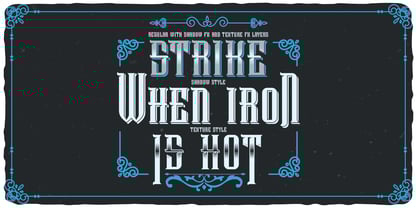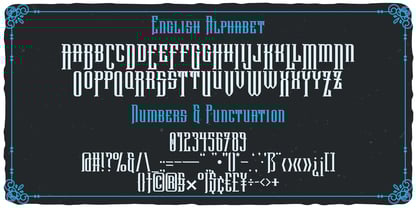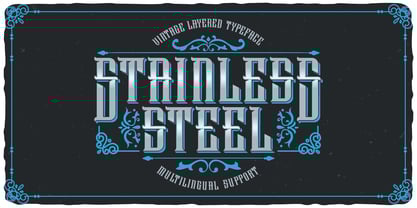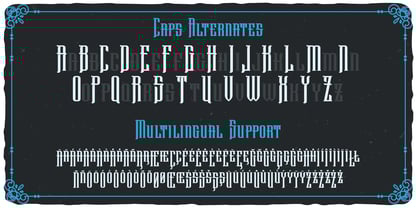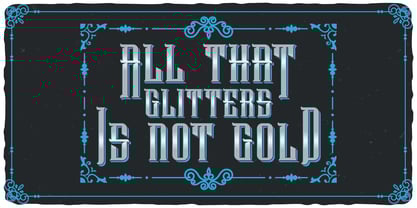
Stainless Steel
by Vozzy
The Stainless Steel Font Family was designed by Oleg Voznyy and published by Vozzy. Stainless Steel contains 4 styles and family package options.
Introducing the original display font "Stainless Steel" – a striking and uniquely handcrafted typeface that brings character to any project. Designed with a strong visual identity, it features extended characters, punctuation, and full multilingual support. Every letter was drawn by hand to create a distinctive, eye-catching look that sets your work apart. Perfect for posters, flyers, branding, apparel, and more, this font adds a creative edge wherever it’s used. "Stainless Steel" is all about making your message stand out with style.
Designers: Oleg Voznyy
Publisher: Vozzy
Foundry: Vozzy
Design Owner: Vozzy
I'm a graphic designer since 2004, working on stock sites since 2013. I have a little collection of fonts created by me on different stock sites - like CreativeMarket, TheHungryJpeg, FontBundles, Shutterstock Adobe Stock etc. I like to create fonts in strong vintage styles with layer styles. I hope they will be useful for your projects; like posters, t-shirts, logos etc.